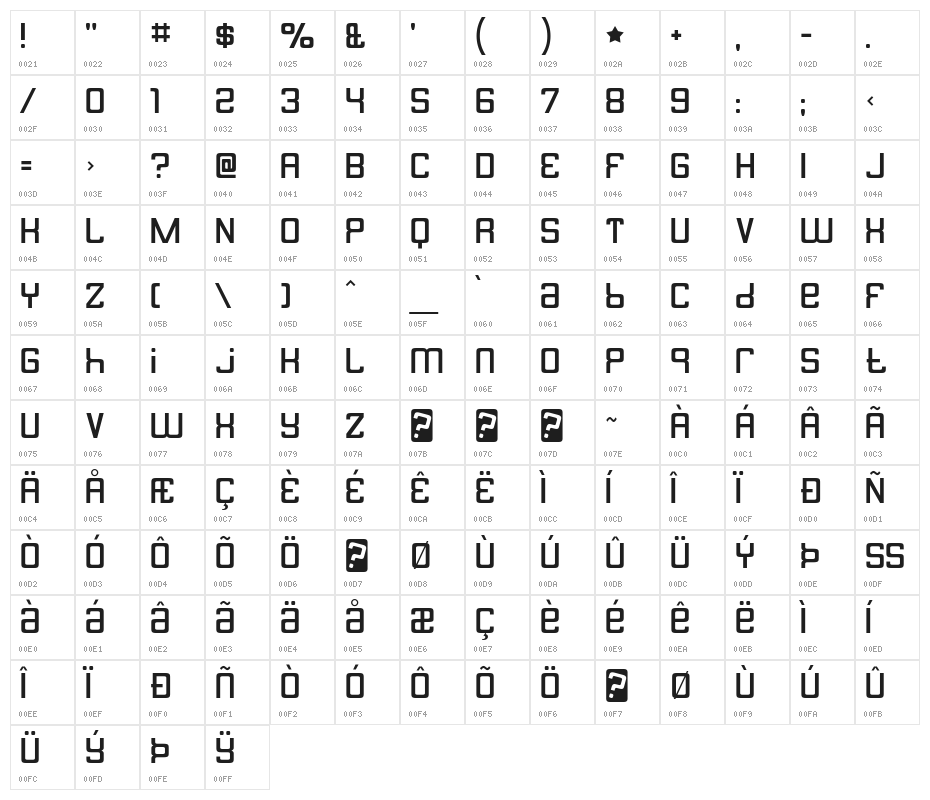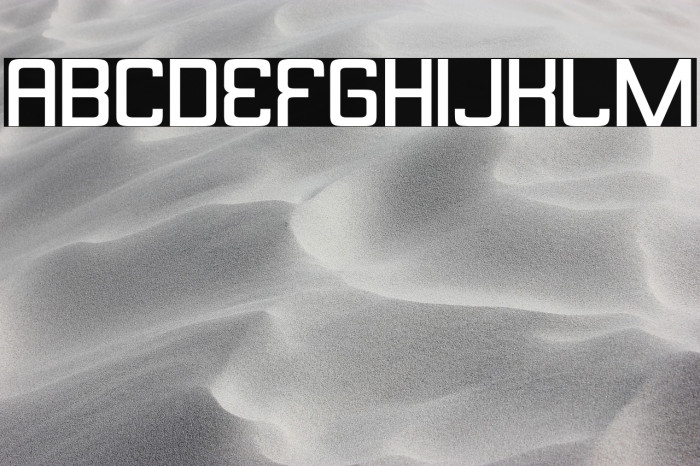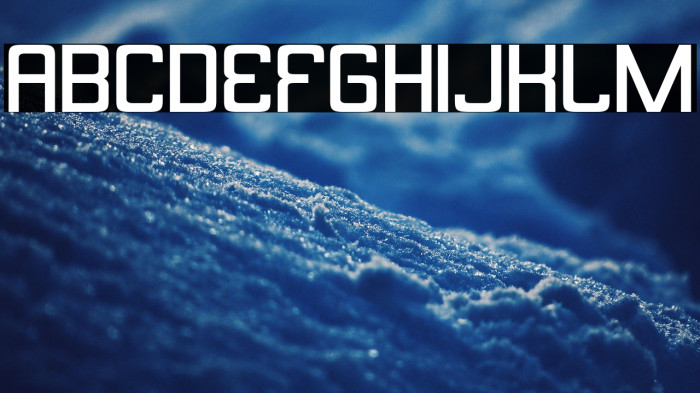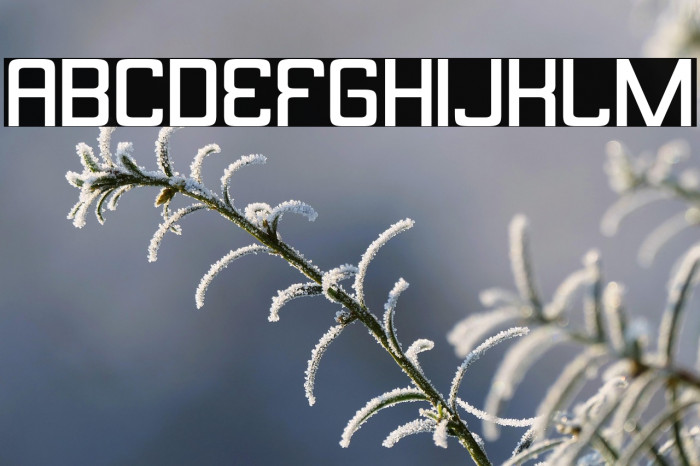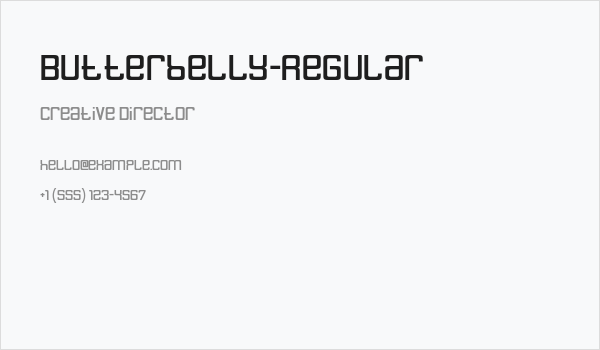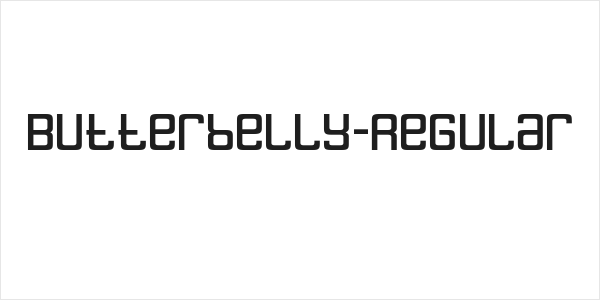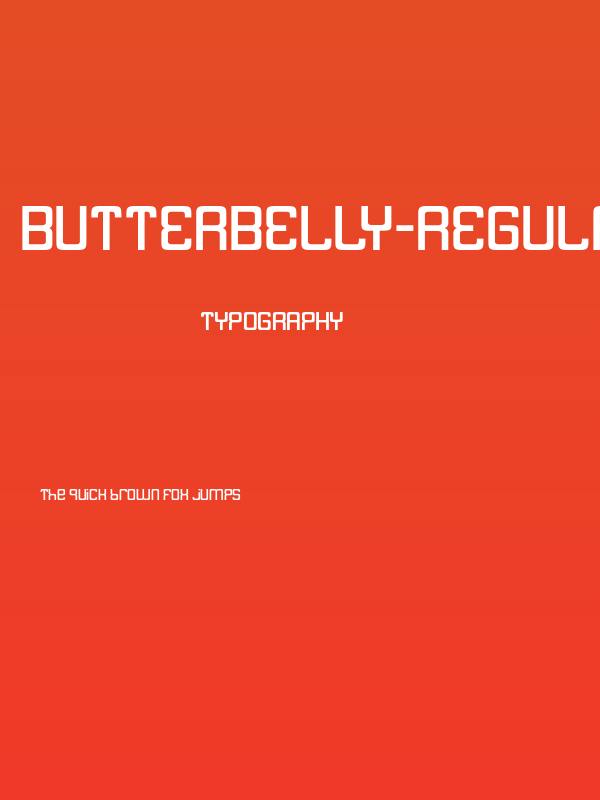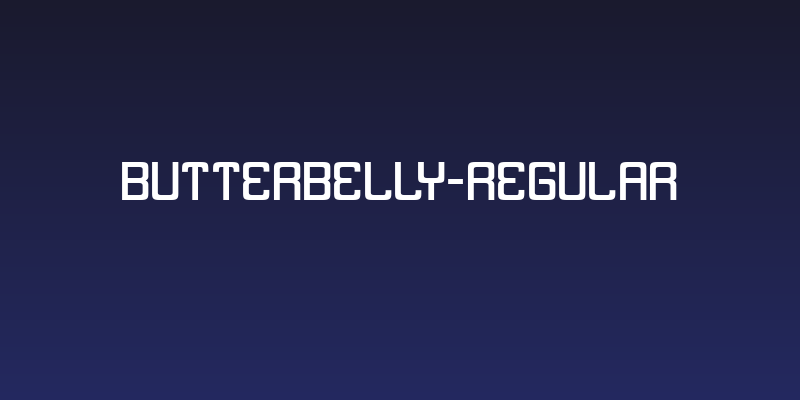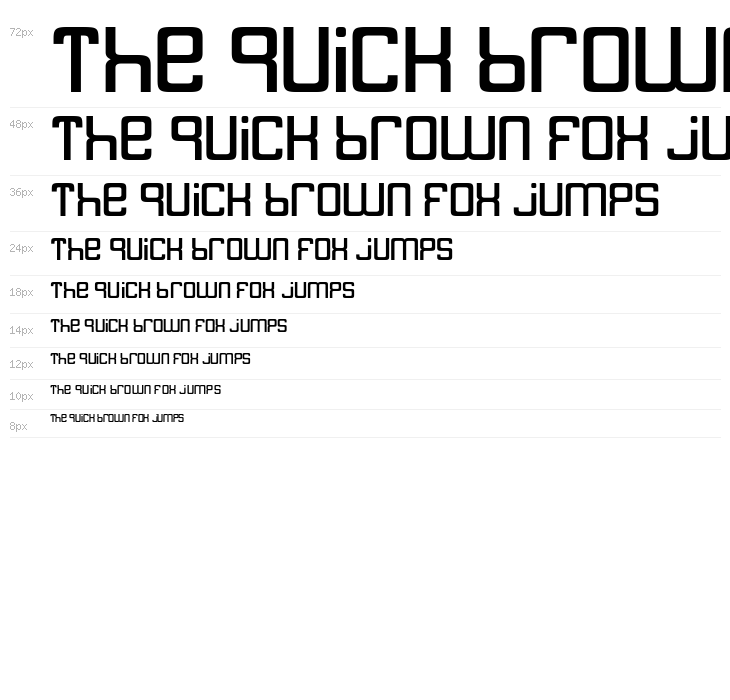
Butterbelly-Regular Font
Butterbelly-Regular Description
This font features a bold and geometric design with rounded edges, giving it a modern and approachable feel. The uppercase and lowercase letters maintain a consistent height, contributing to a uniform appearance. The numerals and special characters are designed with the same geometric precision, ensuring readability and style. The font's structure is clean and minimalistic, making it suitable for various design applications. Its unique character shapes, such as the distinctive 'Q' and 'R', add a touch of creativity while maintaining legibility.
| Proposed Projects | Ideal for branding, posters, headlines, and digital media where a modern and bold statement is needed. |